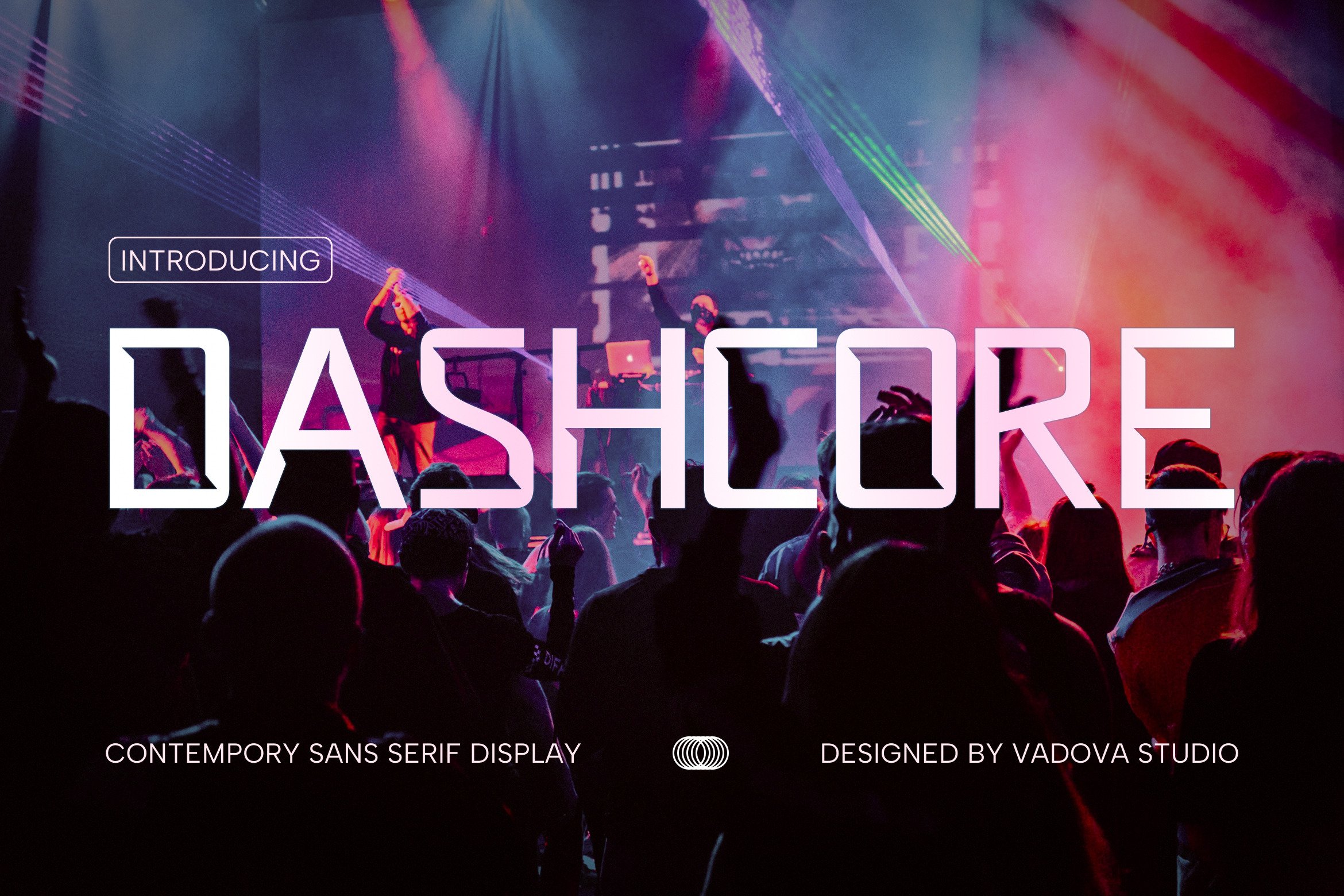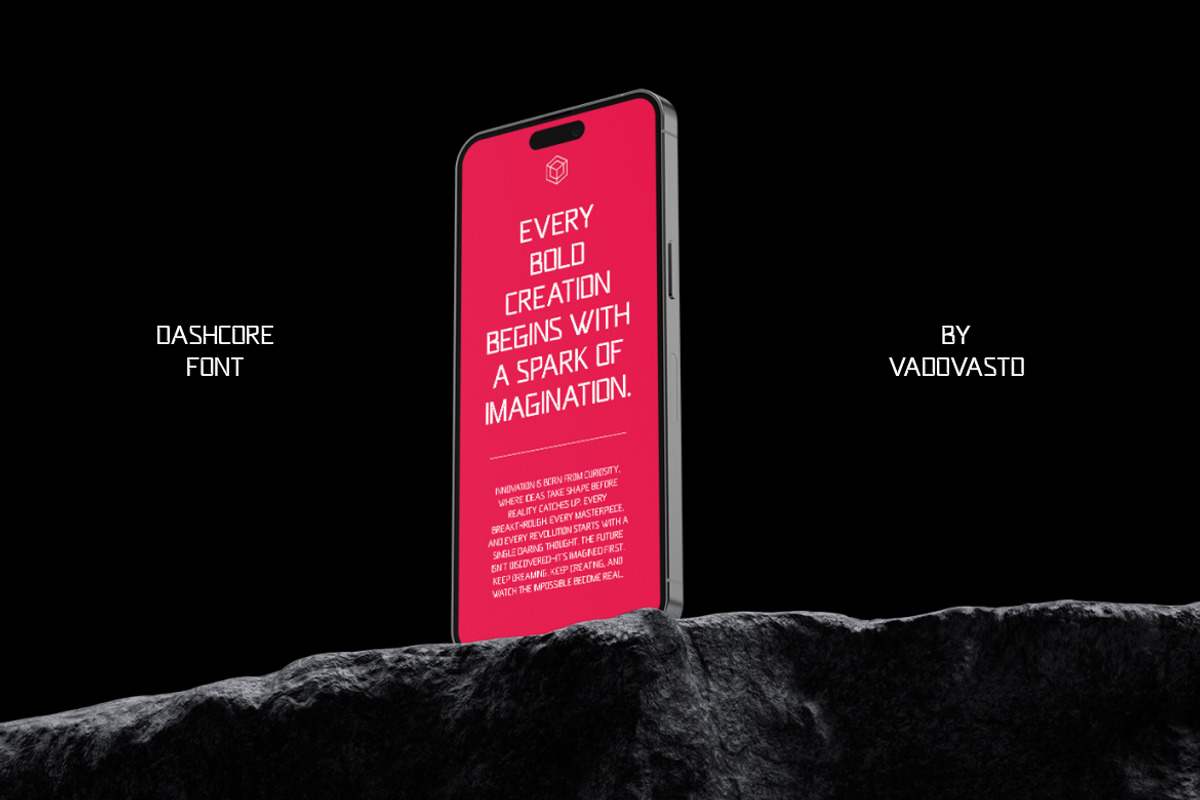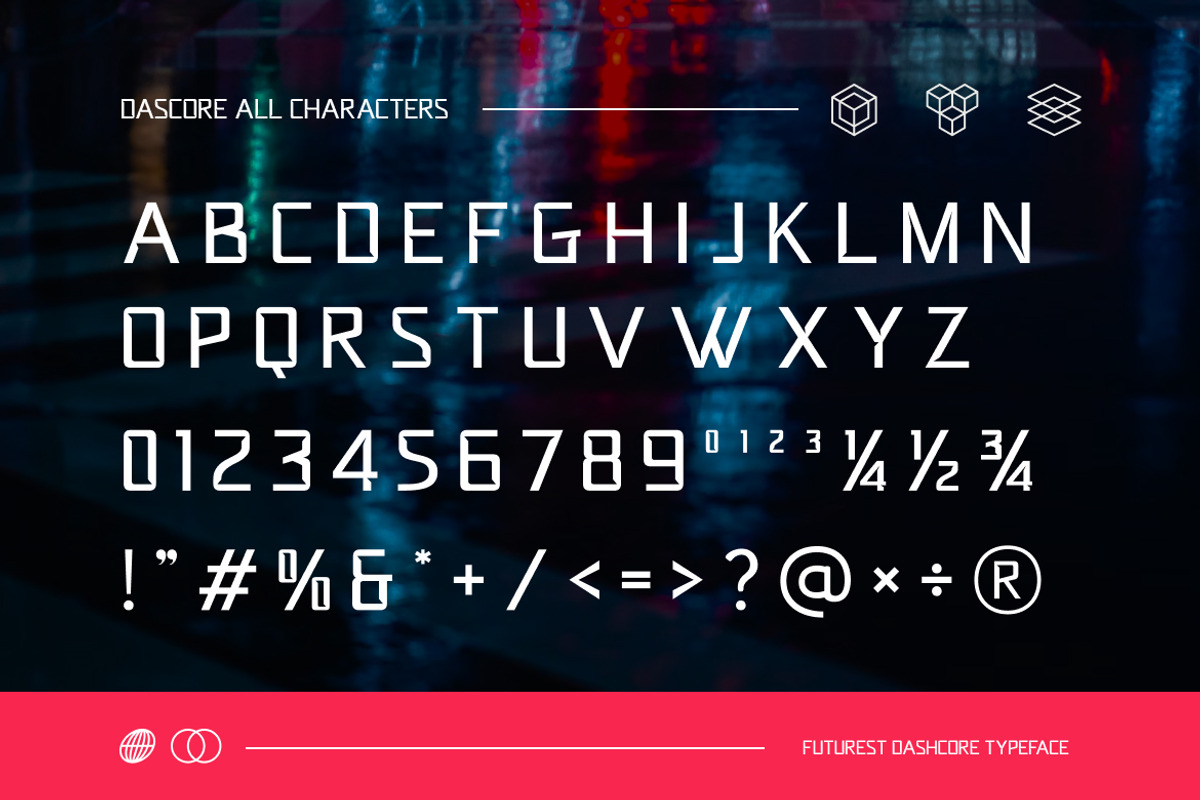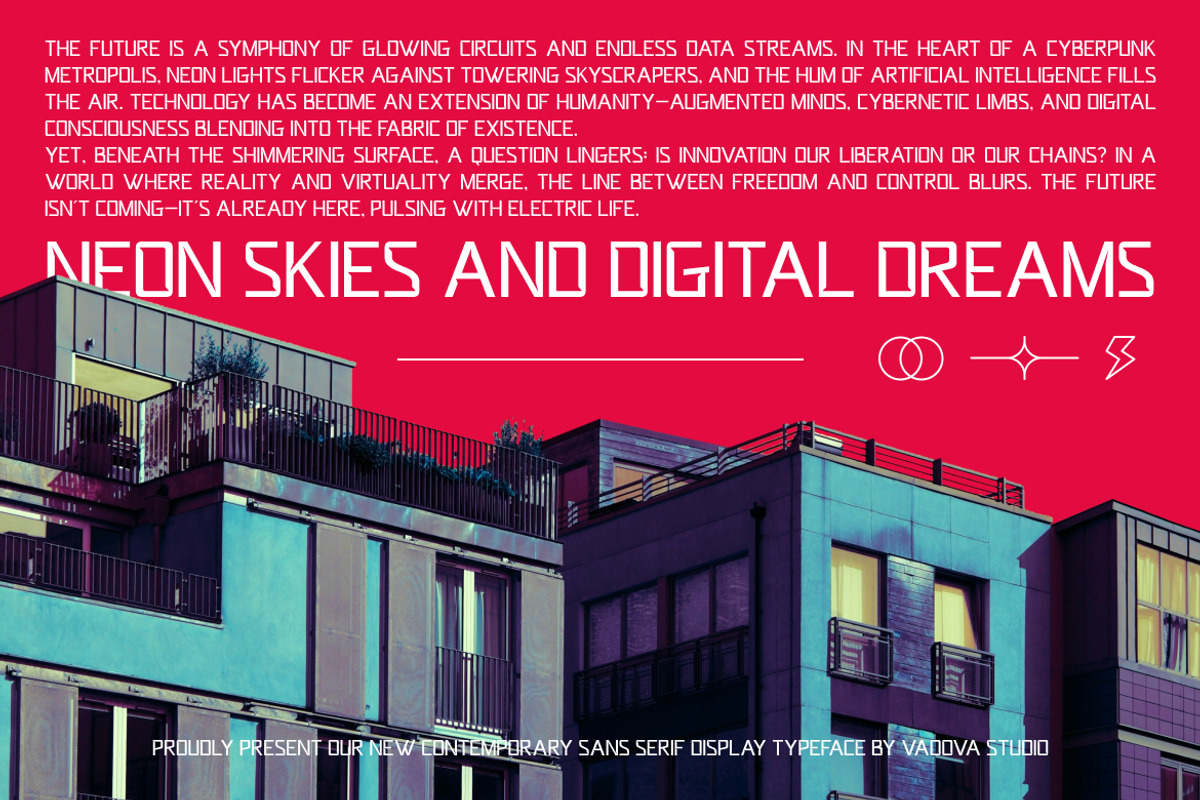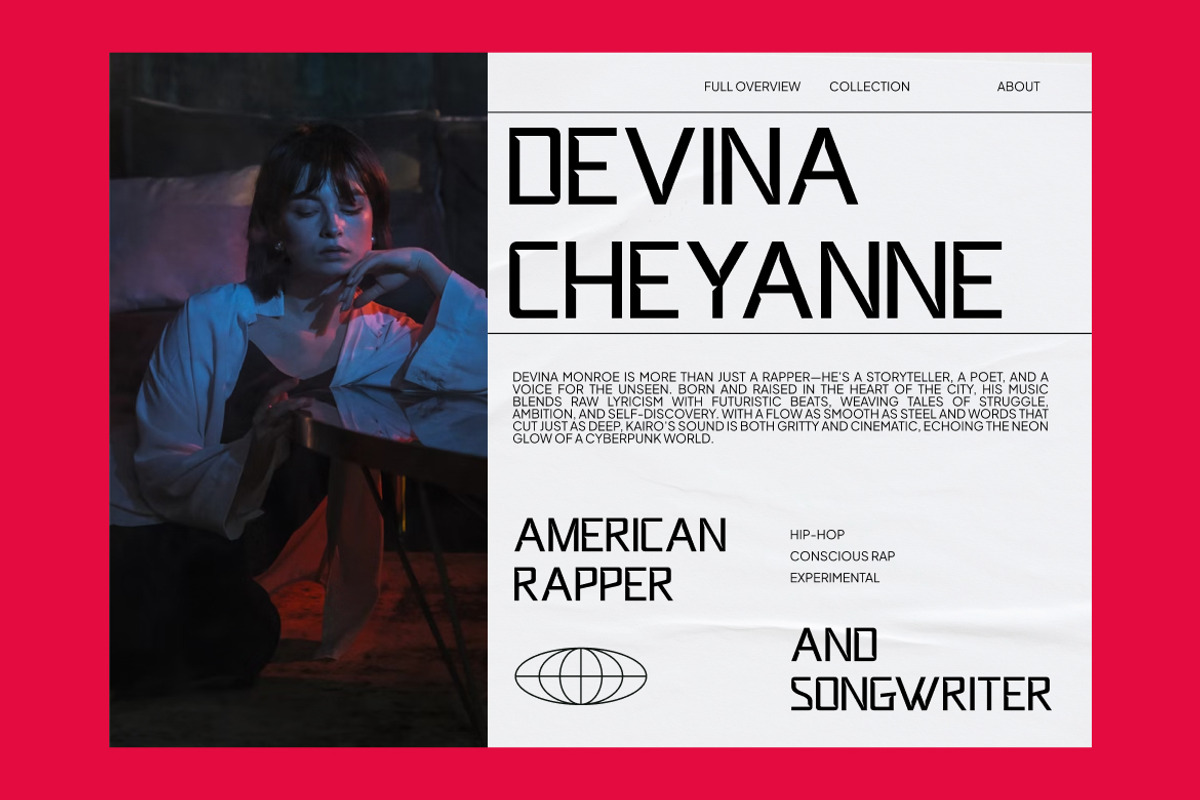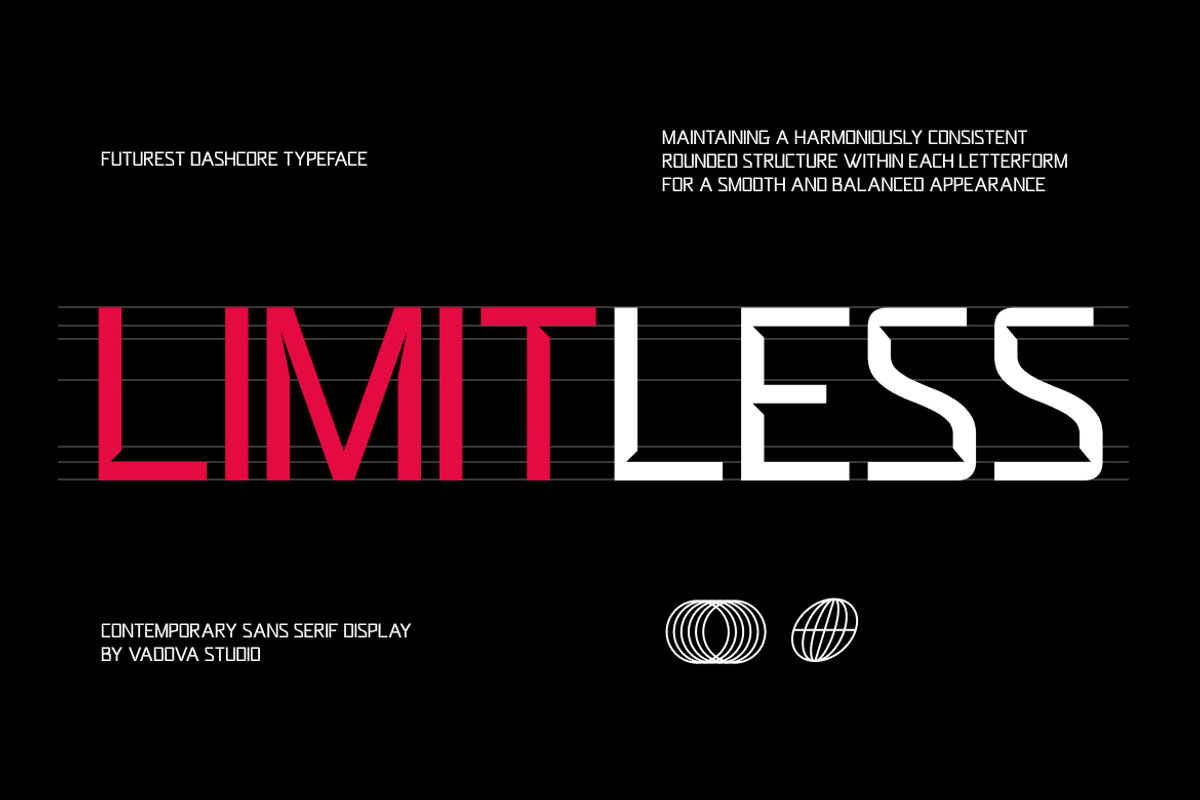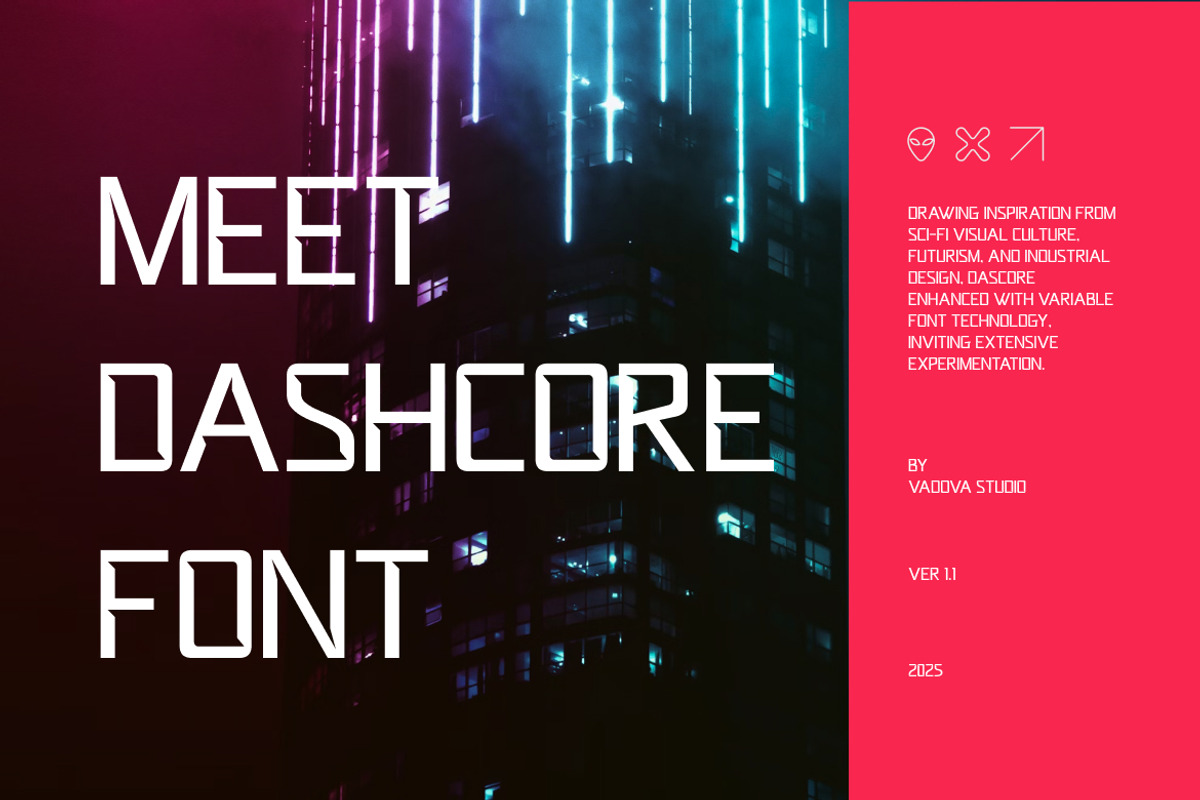
Dashcore Contemporary Sans Font
Dashcore is a contemporary futuristic display font inspired by sci-fi visuals, cyberpunk aesthetics, and modern industrial design. Built with sharp geometric structures and technological character shapes, Dashcore delivers a bold and forward-thinking typographic presence perfect for digital, gaming, and technology-focused projects. This typeface includes uppercase letters, numerals, punctuation, and special symbols carefully crafted to maintain a cohesive futuristic style.
Dashcore is designed for projects that require a futuristic and technological visual identity. Its bold geometric style makes it highly suitable for gaming titles, music festival posters, sci-fi themed designs, tech startups, futuristic branding, and digital interface graphics. Designers working on cyberpunk visuals, electronic music artwork, or modern digital campaigns will find Dashcore especially effective for creating strong and immersive headlines.
- Futuristic geometric construction inspired by sci-fi and cyberpunk aesthetics
- Angular character shapes with sharp cuts for a bold technological feel
- Distinct modular letterforms creating a strong futuristic identity
- Clean strokes and structured forms for striking display headlines
- Optimized spacing to maintain clarity in posters, titles, and digital graphics
- Futuristic brand identity systems for tech startups and digital products
- Gaming titles, esports graphics, and cyberpunk visual projects
- Electronic music posters, festival branding, and DJ event promotions
- Technology interfaces, UI headlines, and digital product visuals
- Sci-fi themed posters, movie titles, and experimental graphic design